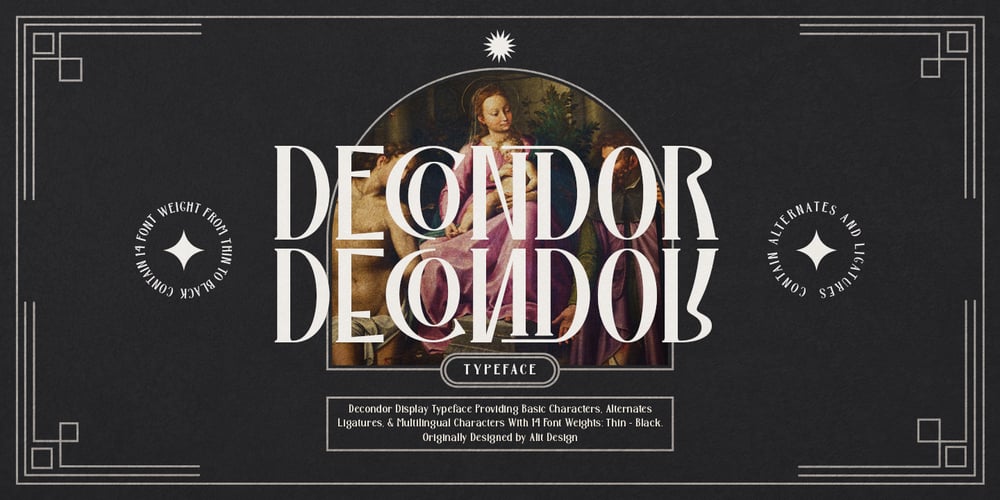
Decondor
Decondor font
Decondor Font Family was designed by Alit Suarnegara and published by Alit Design. Decondor contains 14 styles and family package options. Introducing DECONDOR TypefaceDECONDOR font family consists of 14 families, from Thin to Heavy style fonts. The elegant modern font creates a unique design and is sure to steal the eye of the design target audience. Besides being unique, the DECONDOR font also has a luxury simple character that makes the design charming and classic luxurious.These a fonts are perfect for designs with the concept of elegant, luxury, romance, fashion, classic royal and so on.